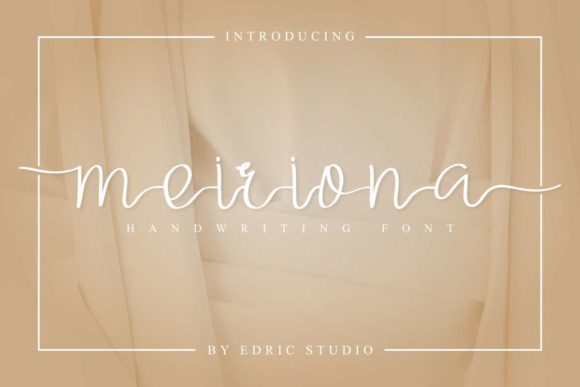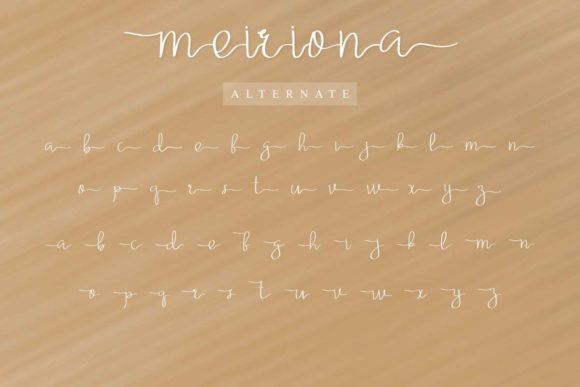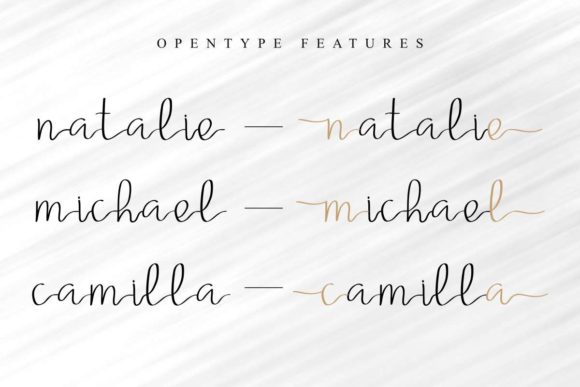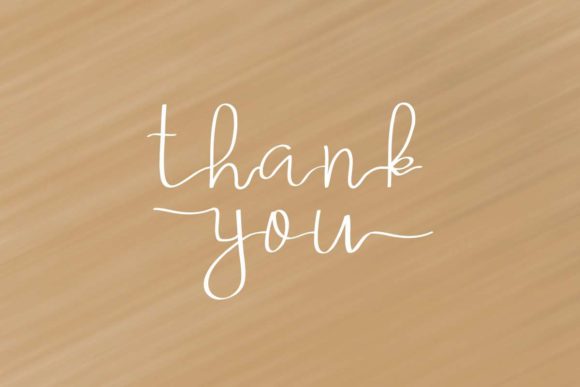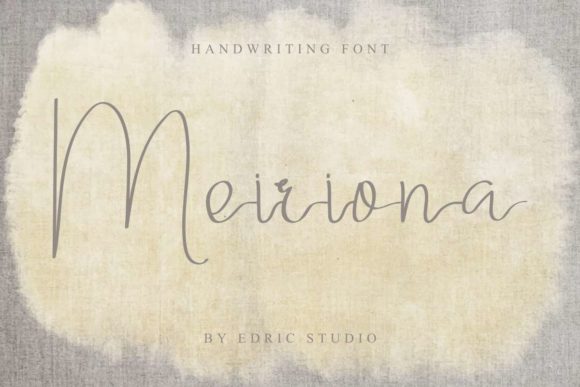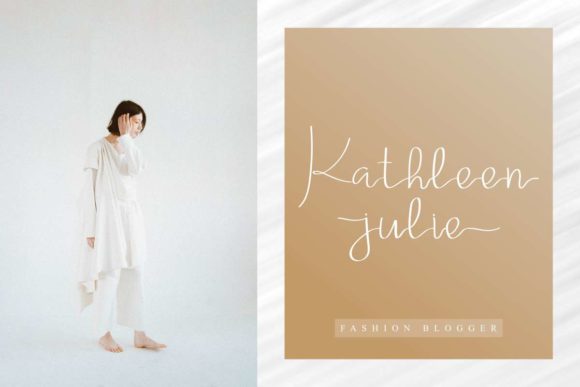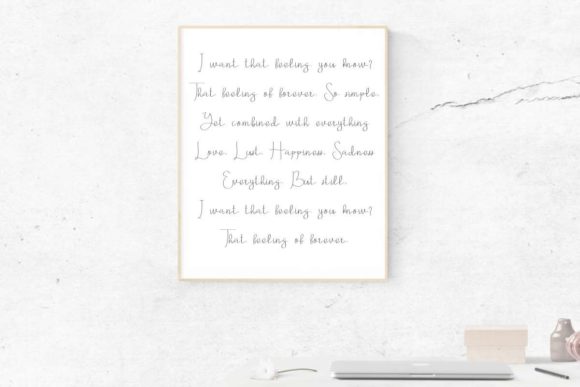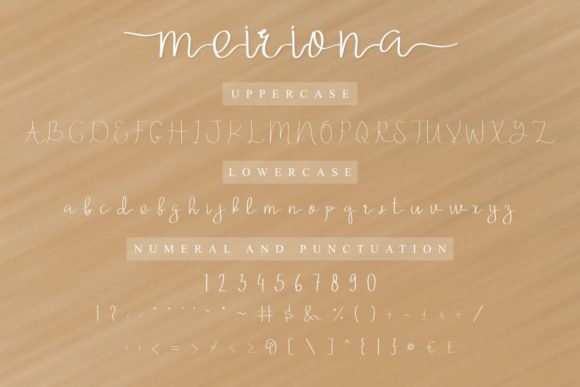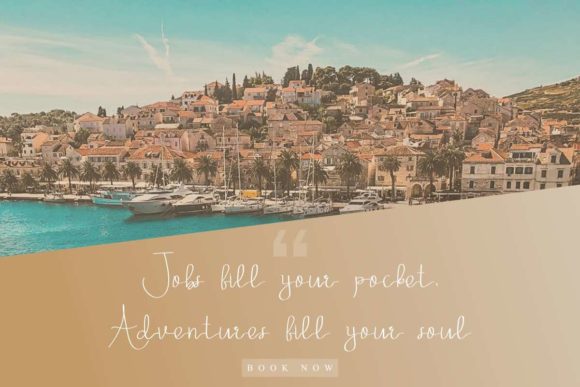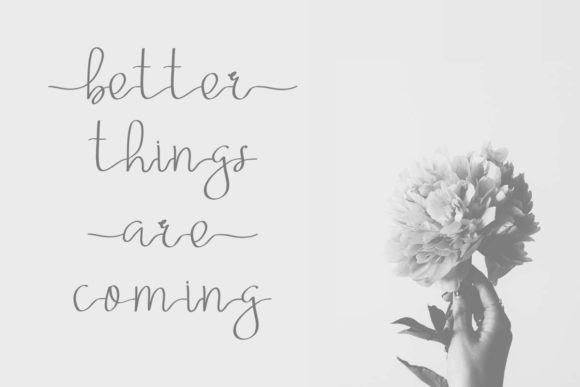
HomeScript FontsMeiriona Font Script Fonts Meiriona Font FacebookXPinterestWhatsApp Meiriona Font Poster 2 Meiriona Font Poster 3 Meiriona Font Poster 4 Meiriona Font Poster 5 Meiriona Font Poster 6 Meiriona Font Poster 7 Meiriona Font Poster 8 Meiriona Font Poster 9 Meiriona Font Poster 10 Meiriona Font Poster 11 Meiriona Font Poster 12 About Meiriona Font Meiriona is a gorgeous and classy script font with a modern vibe. Get inspired by its timeless authenticity! DOWNLOAD NOW People also explored The Briantone Font Western Font Play Party Hat Font Wildforest Font Autentic Font Entade Script Font Brittania Font YWFT Harmony Nebulous Promise 513 0 TagsMeiriona Font Previous articleClaressa FontNext articleLast Rose Font LEAVE A REPLY Cancel reply Comment: Please enter your comment! Name:* Please enter your name here Email:* You have entered an incorrect email address! Please enter your email address here Website: Save my name, email, and website in this browser for the next time I comment. Personal Use Free Equalizer Script Personal Use Free Read more about this font Miss Love Personal Use Free Read more about this font Relic Island 2 Personal Use Free Read more about this font Santhony Personal Use Free Read more about this font BLOG Best Fonts for T-Shirt Design – Top 2025 Picks In 2025, t-shirt design has become more than just fashion—it's a form of self-expression. Whether you're... Transform Your Website: Elevate Your Typography with 7 Best Web Font Generators Fonts That Capture the Spirit of New York City Using Fonts in Digital Marketing: Tips to Strengthen Your Brand Identity